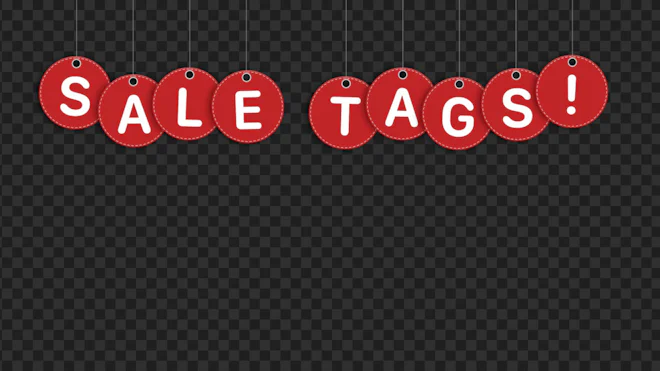
This stock motion graphics video pack includes 44 different clips of circular sale tag typefaces with entry and exit animation on a transparent alpha channel in a seamless loop. The pack includes 26 letters, 10 numbers, and 8 symbols.